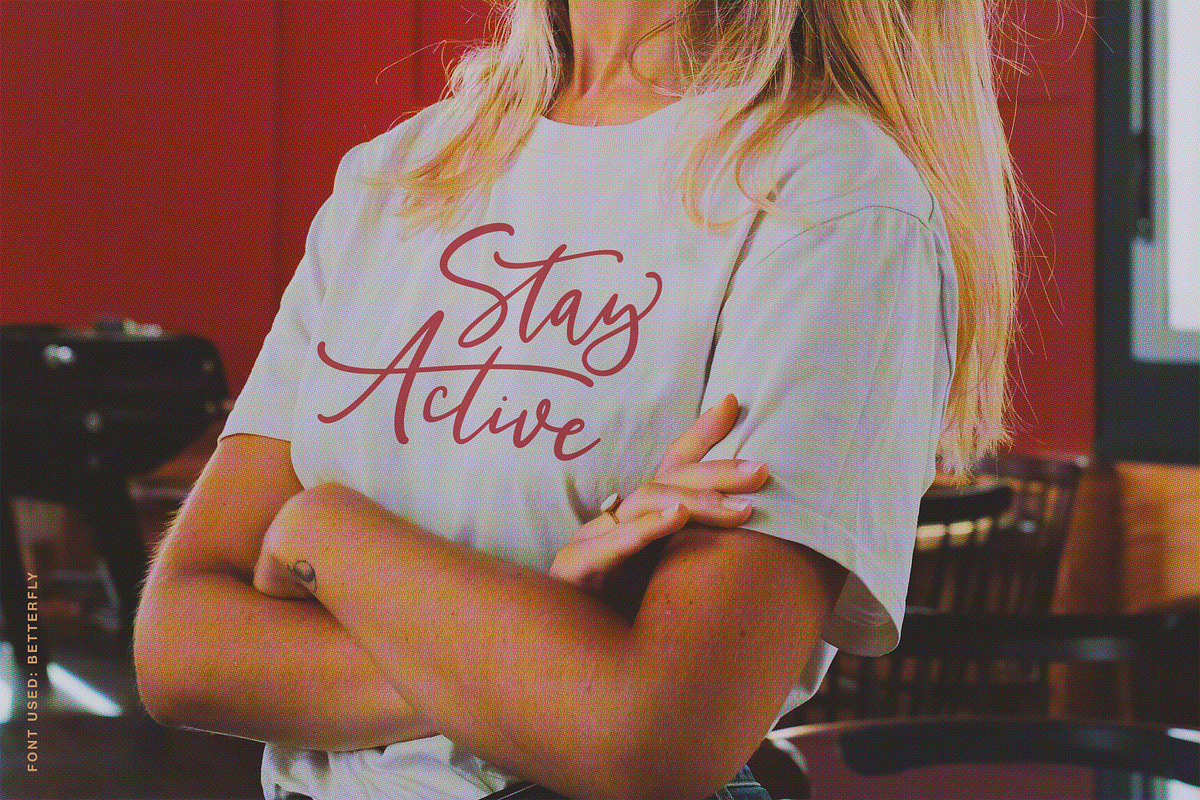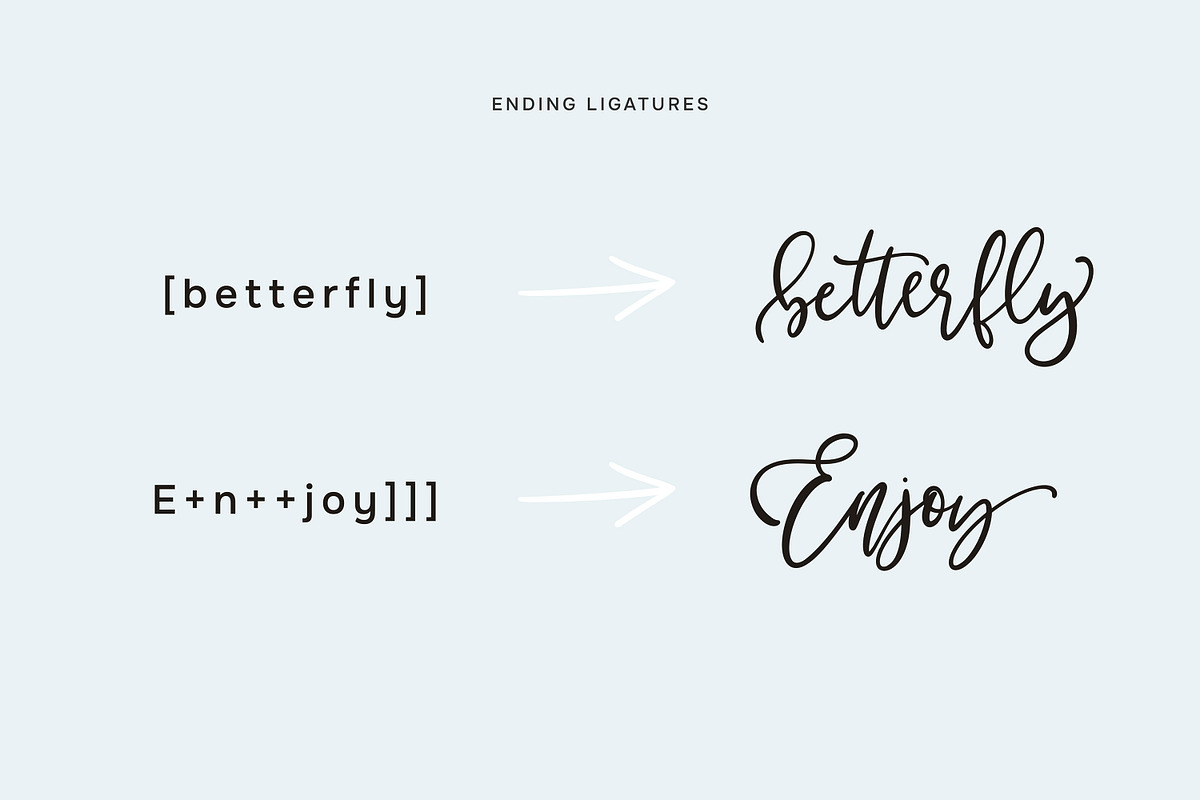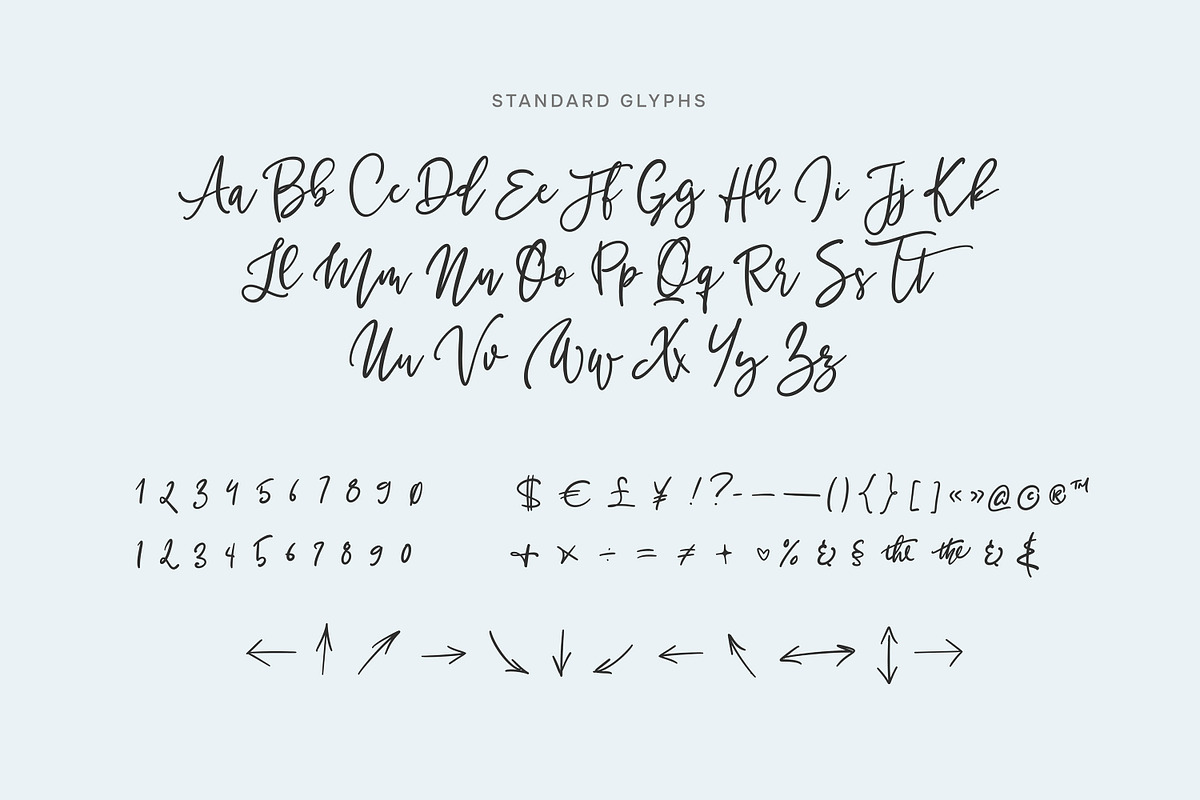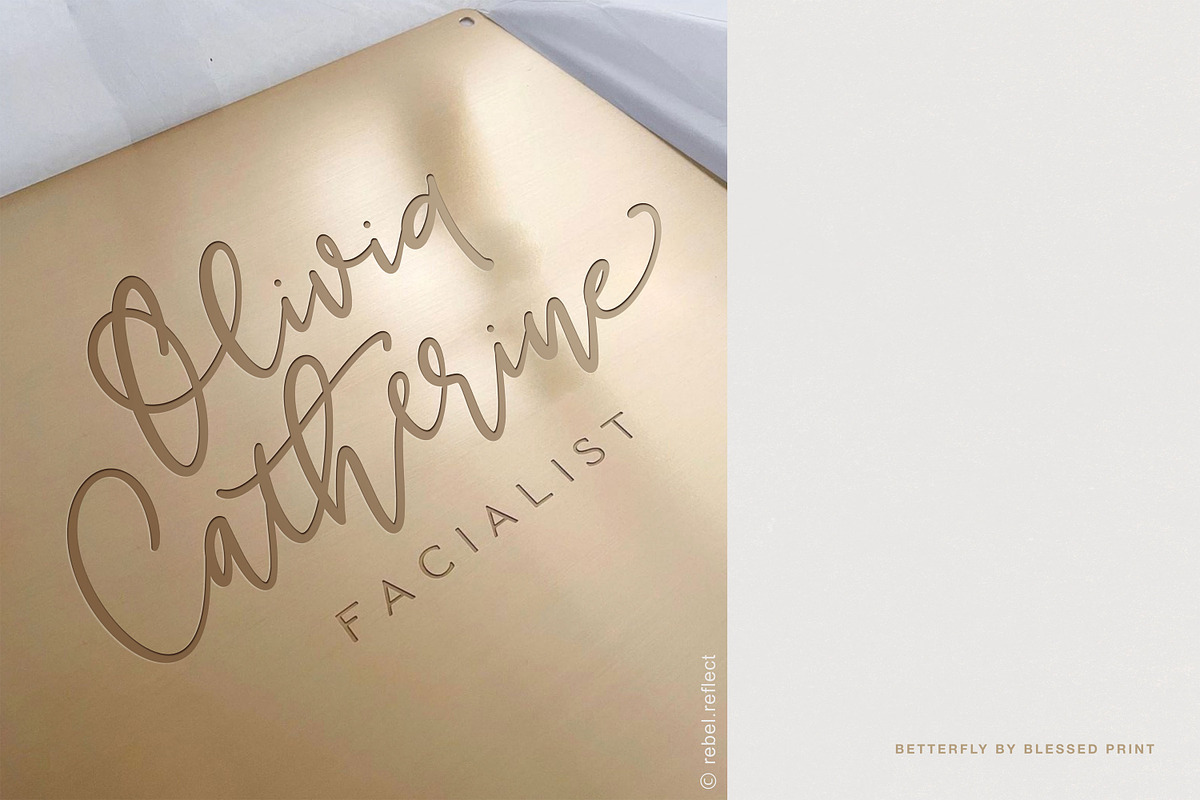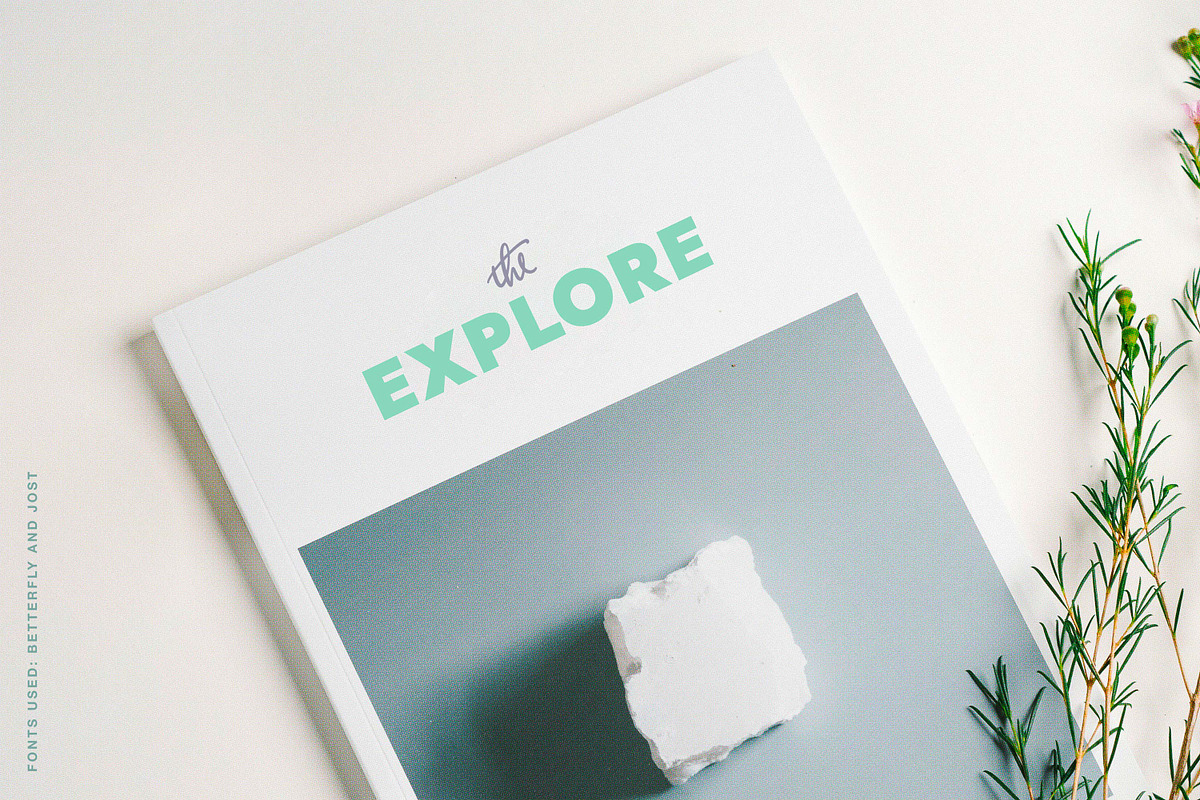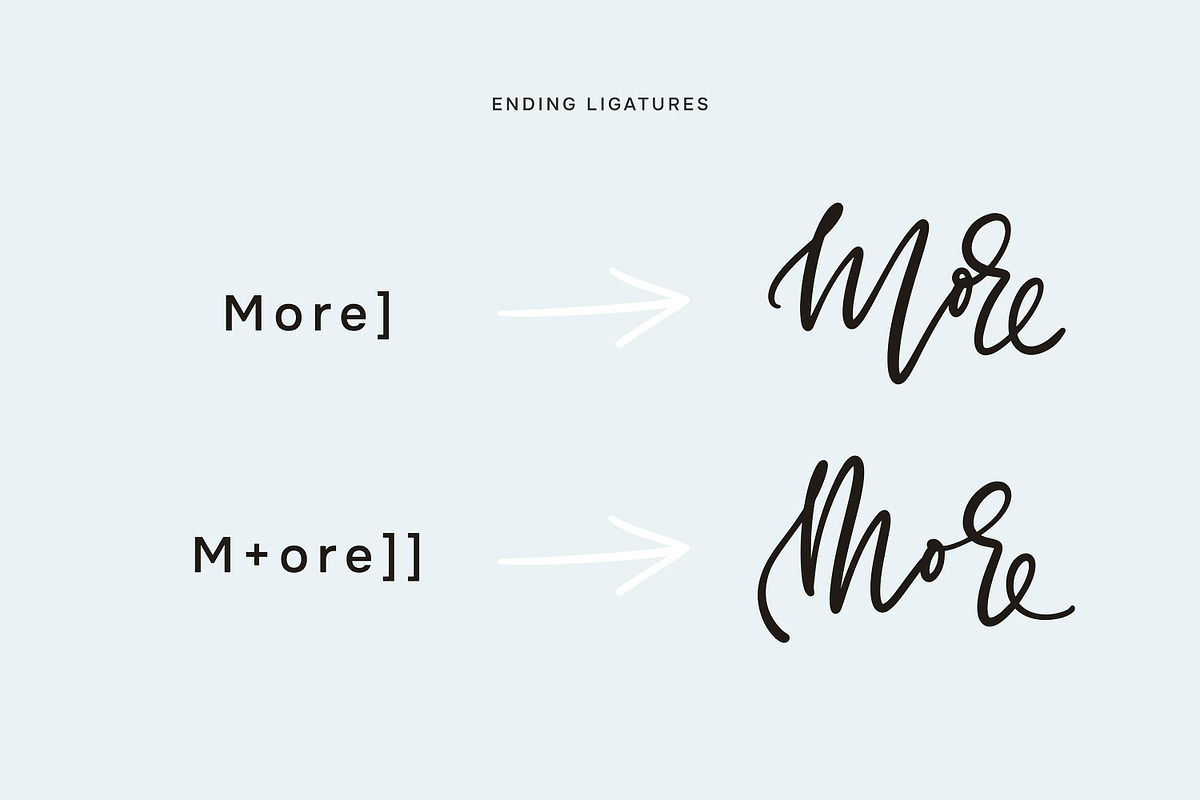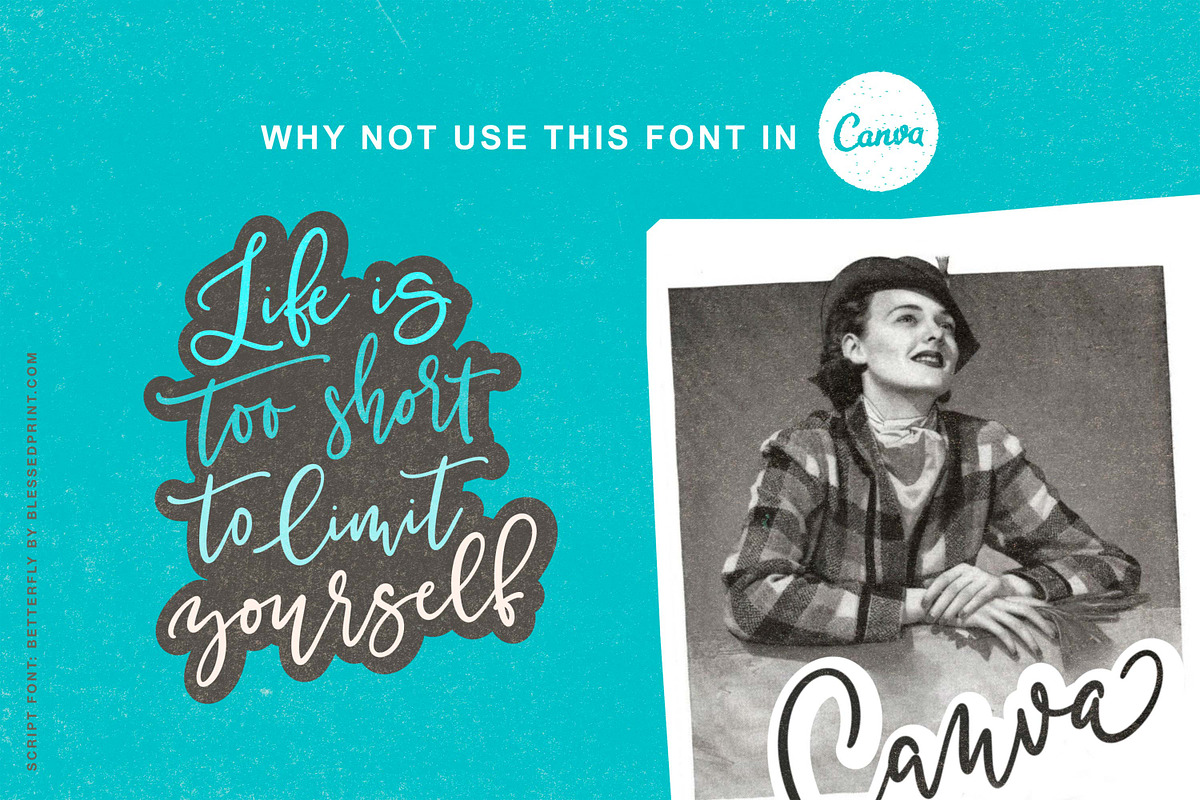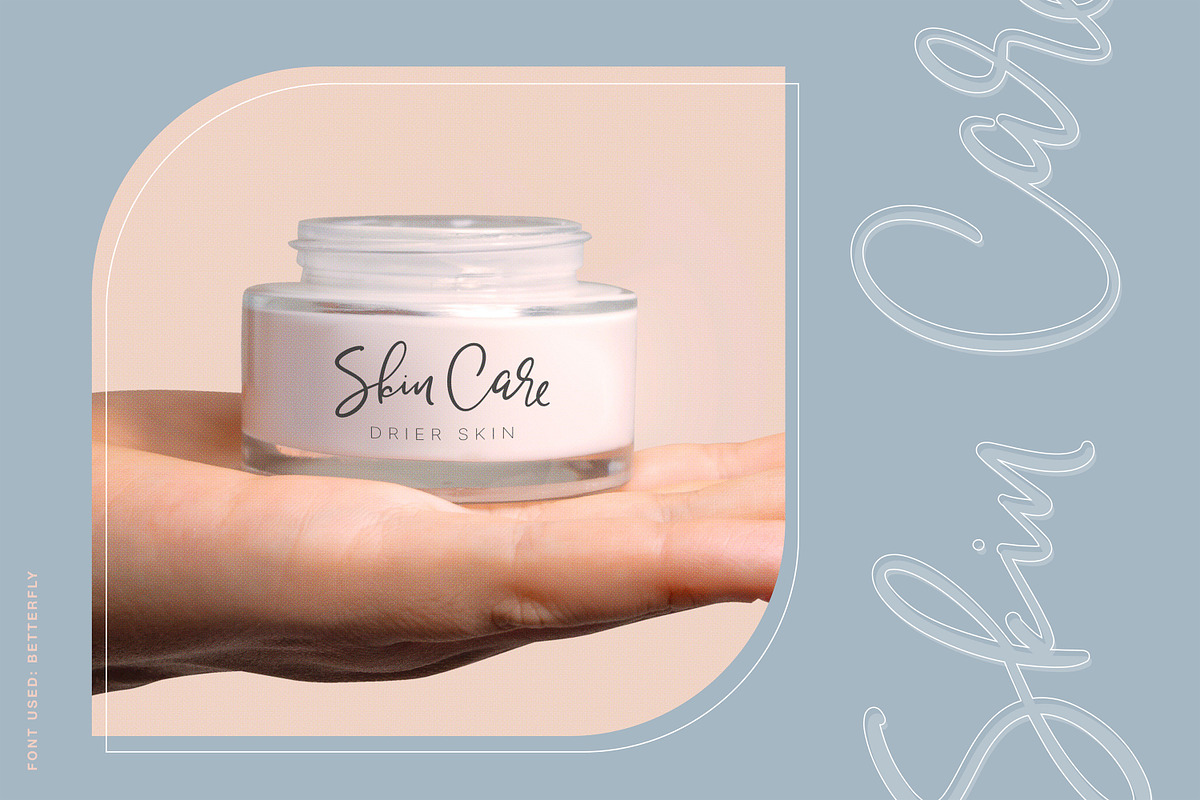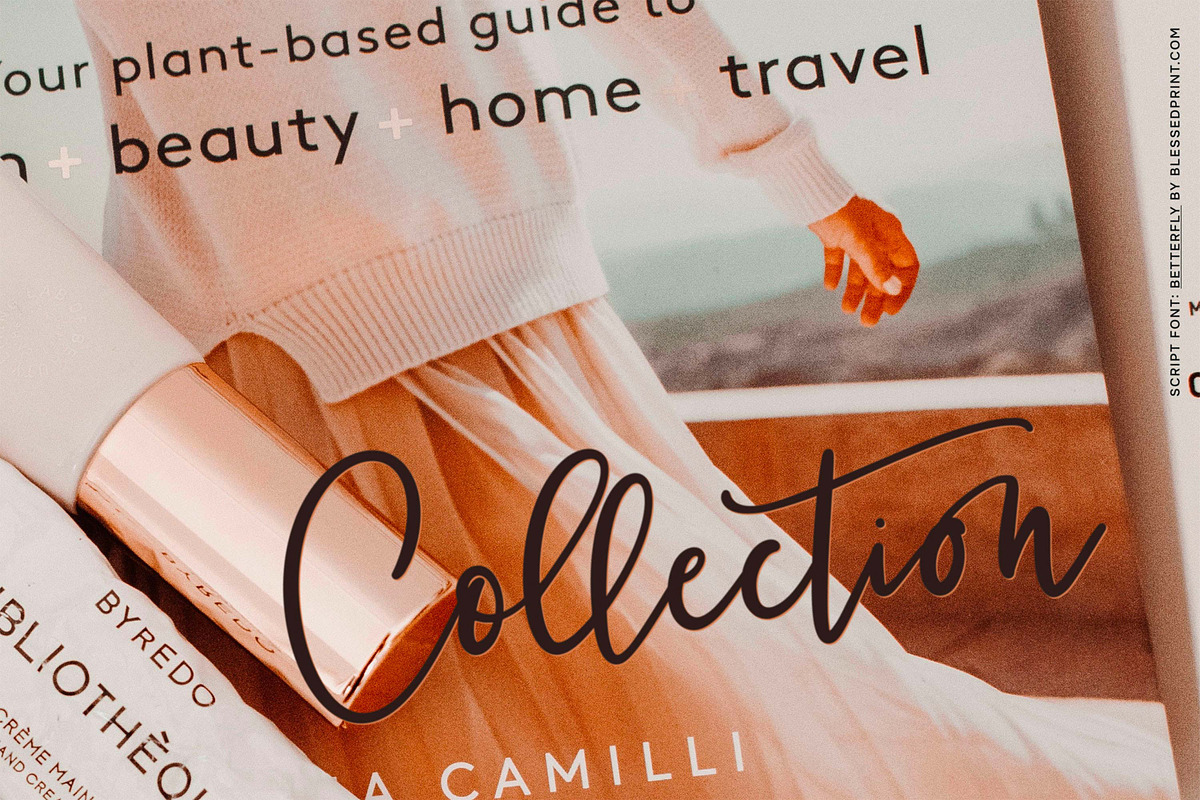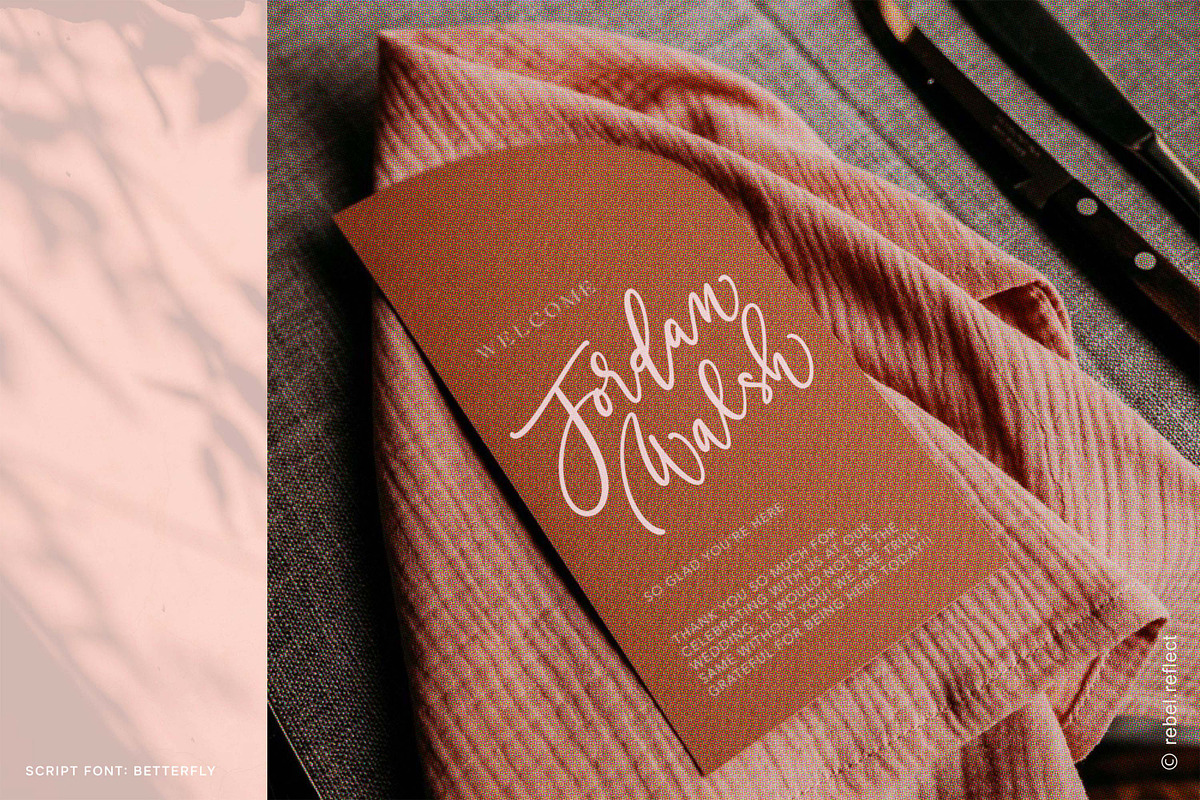
BetterFly - for Canva & Templett
BetterFly script is a little playful and eccentric, but at the same time elegant and harmonious with a slight retro style. It can be used both individually and in combination with strict sans fonts. It is not just a modern calligraphy script as it has its own mood and will not be confused with other fonts. BetterFly was created for real creatives, if you are used to working in applications like Canva or Templett, then this font is just right for you.
To add a unique look to any of the letters, simply use different combinations, For example, a] will turn the letter a into the final letter with an elegant bend, and if you type [b you will get the original letter with a tail, if you type + you will get just an alternative version of the letter.
BetterFly was first drawn in 2015 by Dmitrii Mikitenko from BlessedPrint and during 7 years many designers fell in love with it, but as time goes on, I wanted to completely redraw the font, preserving its style, but giving it a completely new quality and elegance. I also wanted to use all my technical skills. As a result, you can use the font in programs like Canva and Tempelett, and it's absolutely easy to apply alternative glyphs by typing just + or ] after any of the letters.
BETTERFLY IS BEST
- For professional designers
- For inexperienced designers
- For all who loves to experiment with fonts
BEST TO DESIGN
- Logos
- Retro lettering
- Apparel designers
- Wedding invitations
- Stylish scripts for strict fonts to give a retro accent
- Instagram posts and stories
- Quotes
- Cosmetic products
- Packaging
- Book cover
- Magazine cover
- Tattoo
- 583 glyphs, rich in ligatures and a huge number of alternatives